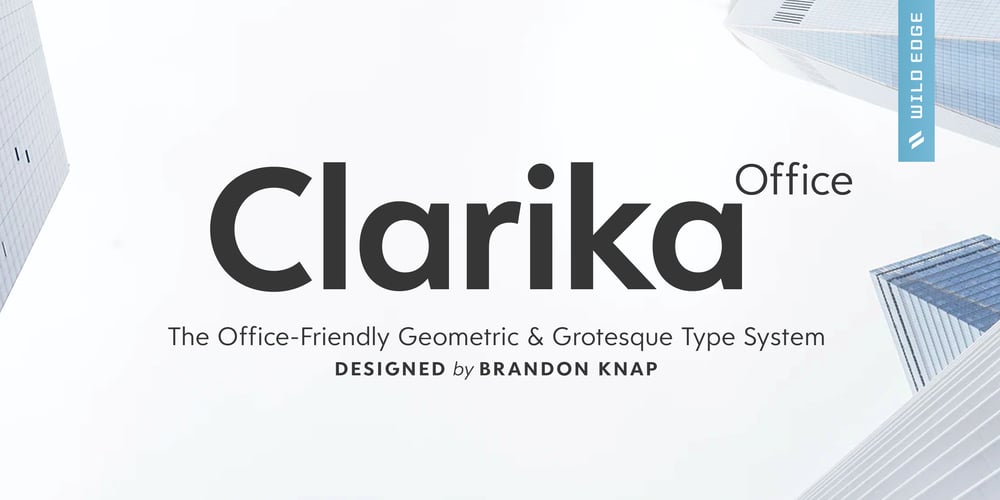
Clarika Office
Clarika Office font
Clarika Office Font Family was designed by Brandon Knap and published by Wild Edge. Clarika Office contains 8 styles and family package options. Clarika Office is the suit-and-tie companion to Clarika Pro designed for ease of use in office applications such as Word or PowerPoint. Clarika Office carries all the same features as Clarika Pro. Within all Clarika families co-exists two sub-families, Clarika Geometric and Clarika Grotesque. Clarika Geometric is the backbone of the system defined by calculated precision, the balance of hard and soft geometry, and simplicity of form while Clarika Grotesque is refined by traditional cues, elegant page texture, and classic grotesque detailing. Clarika is both a nod to the past and a step towards the future. Character sets support over 200 Latin-based languages covering Western Europe, Central/Eastern Europe, Baltic, Turkish, Romanian, and Cyrillic languages. Equipped for professional typography, Clarika supports OpenType features include lining, tabular, and oldstyle figures, fractions, ordinals, superscripts, subscripts, and more.